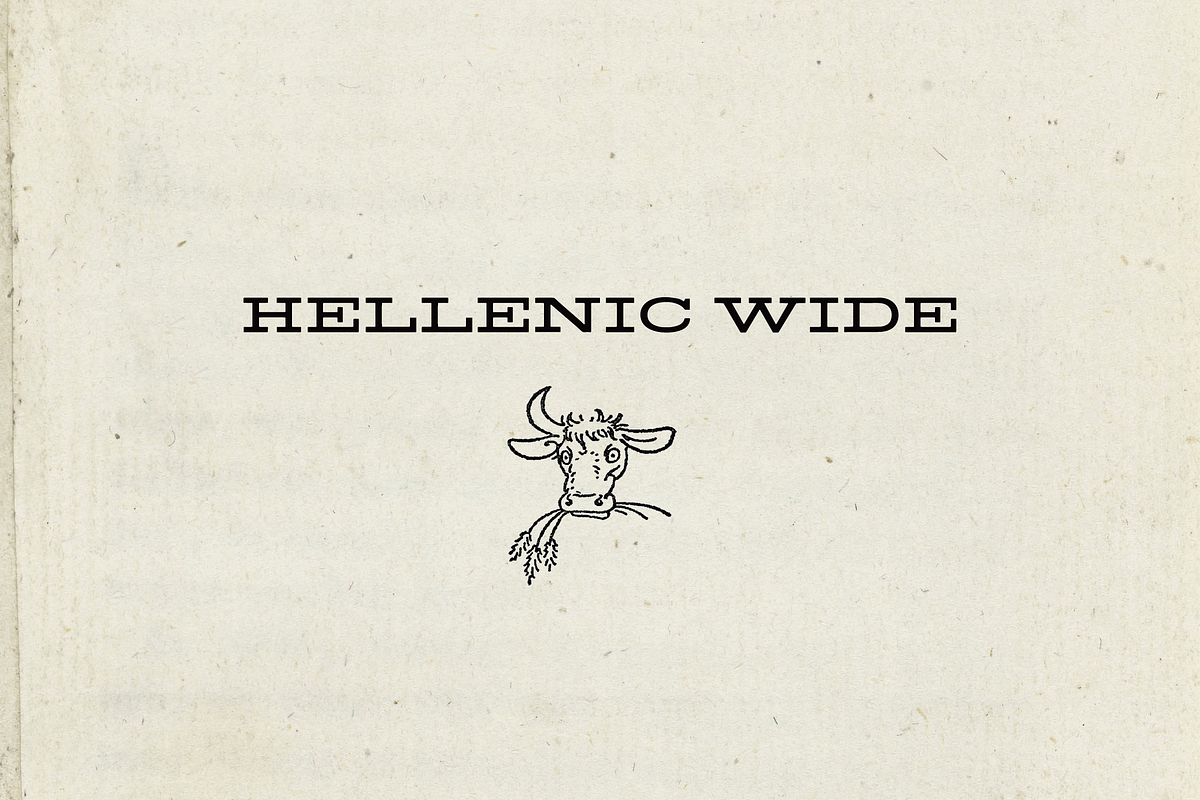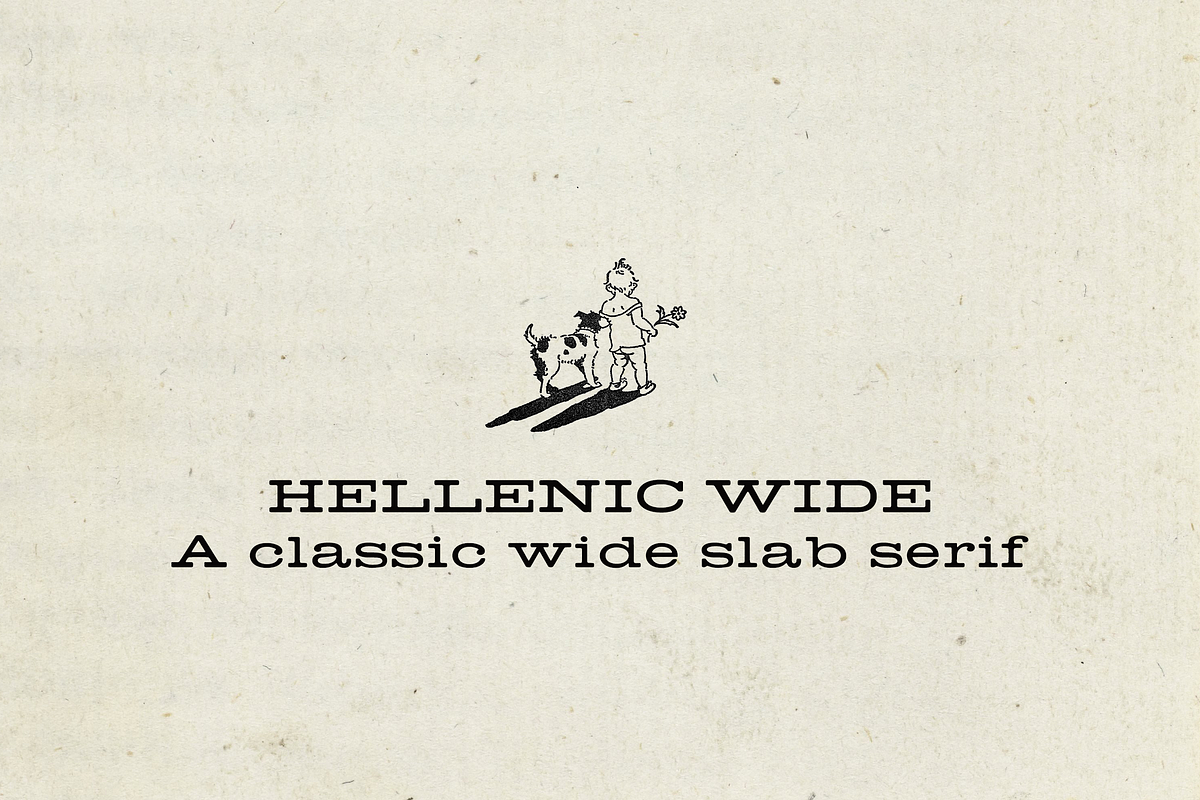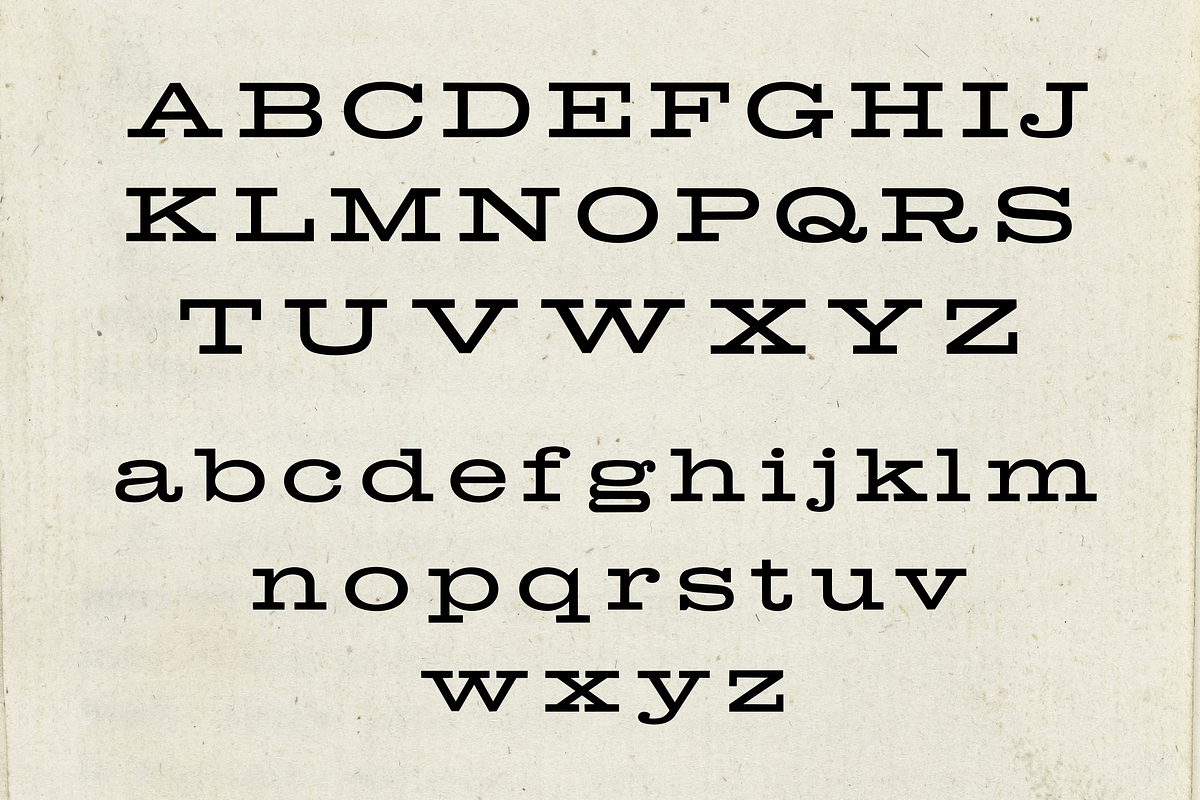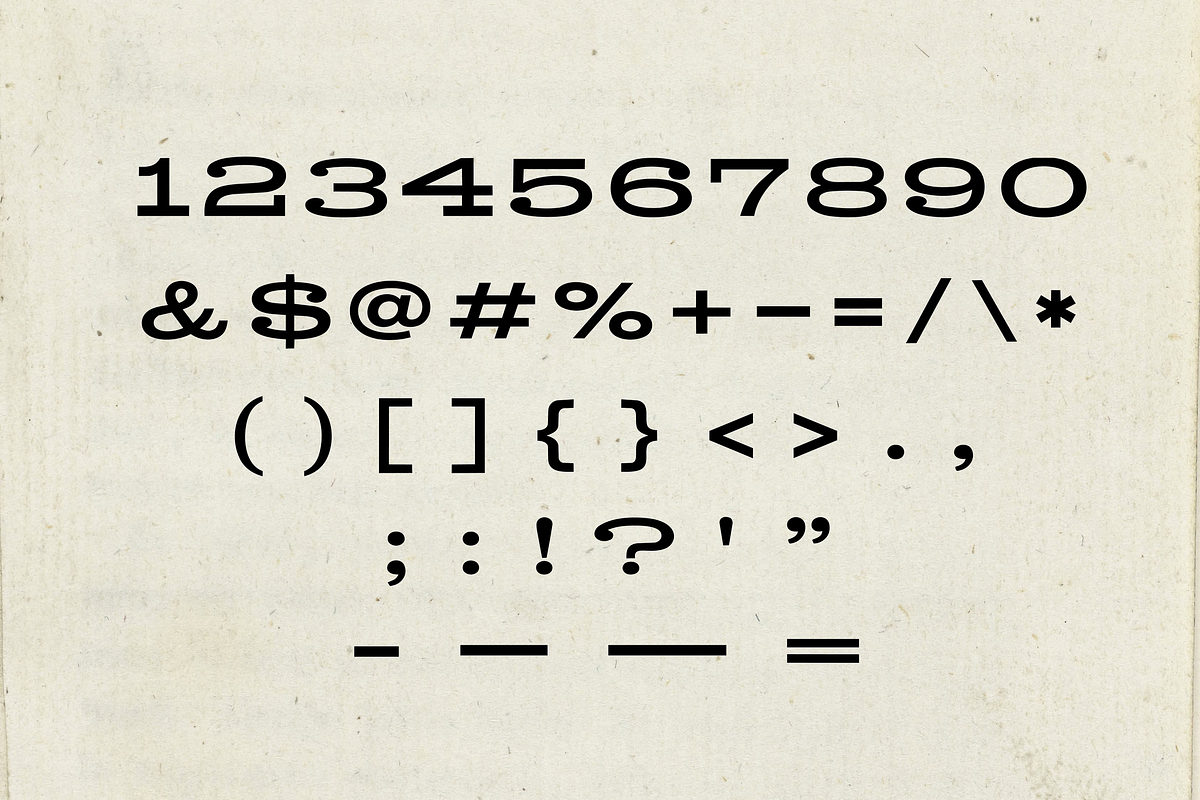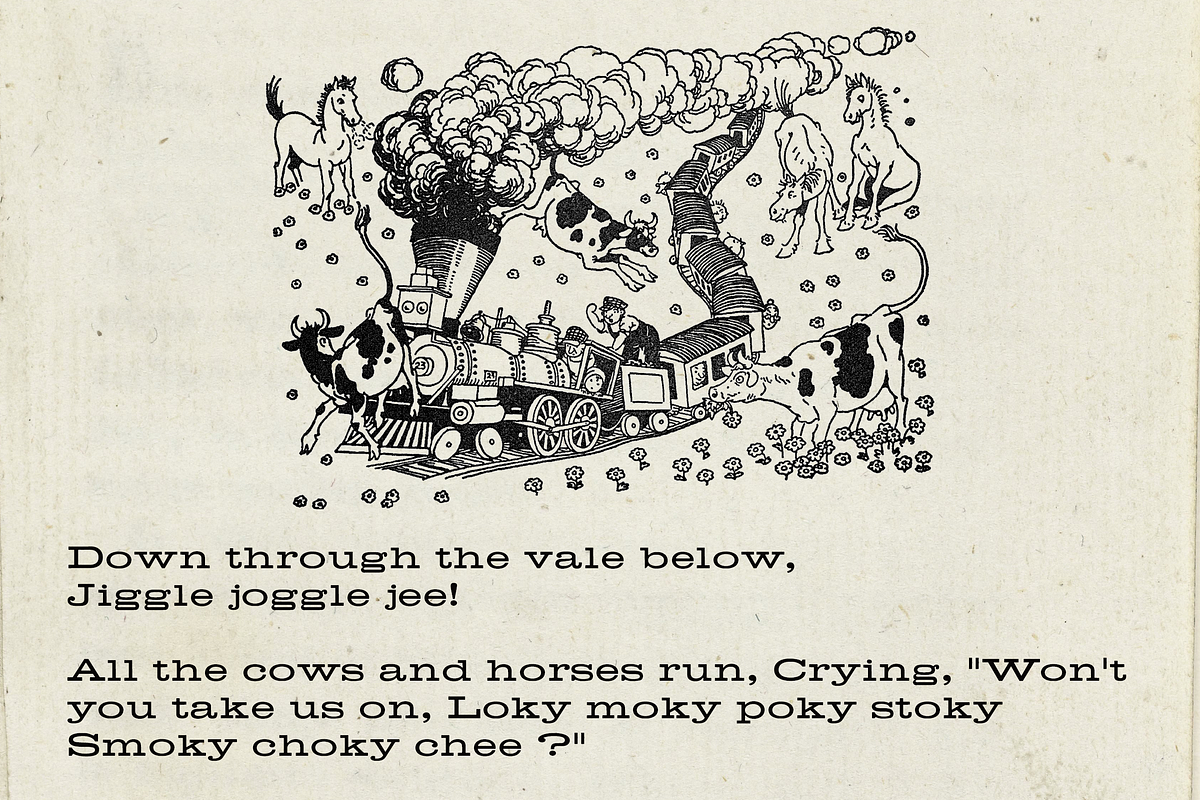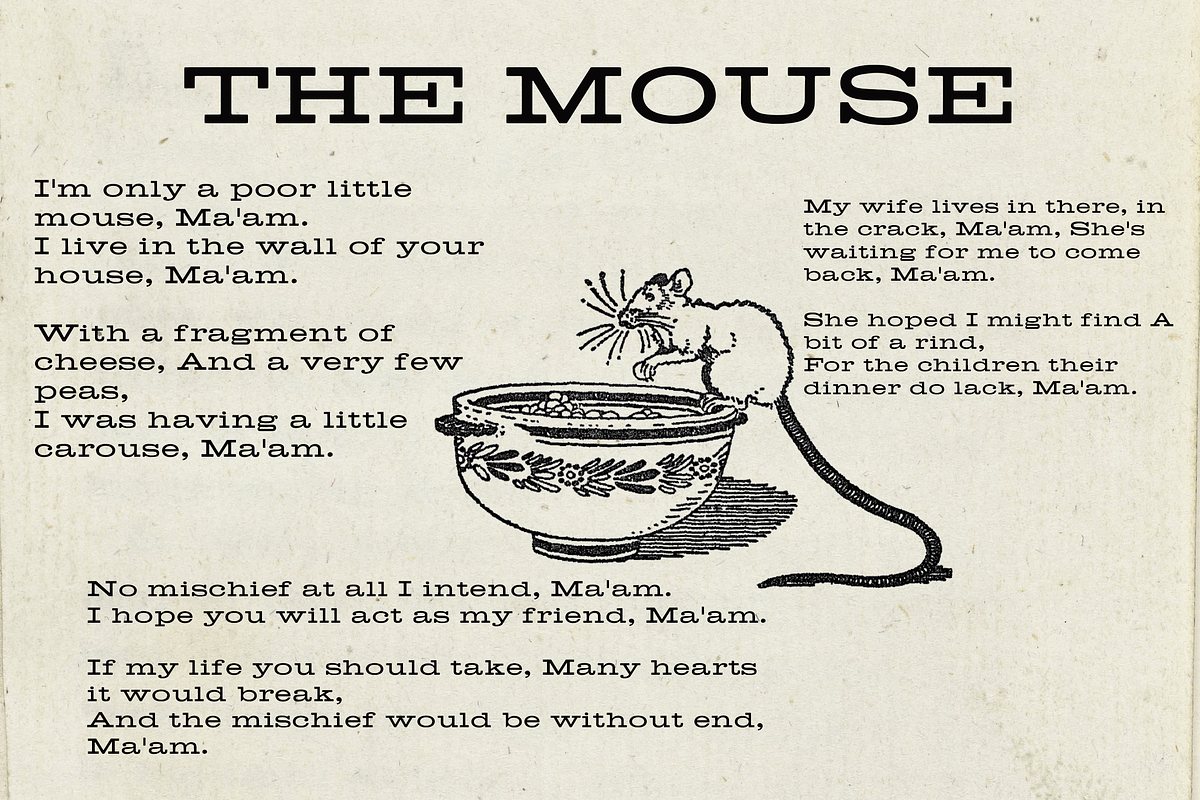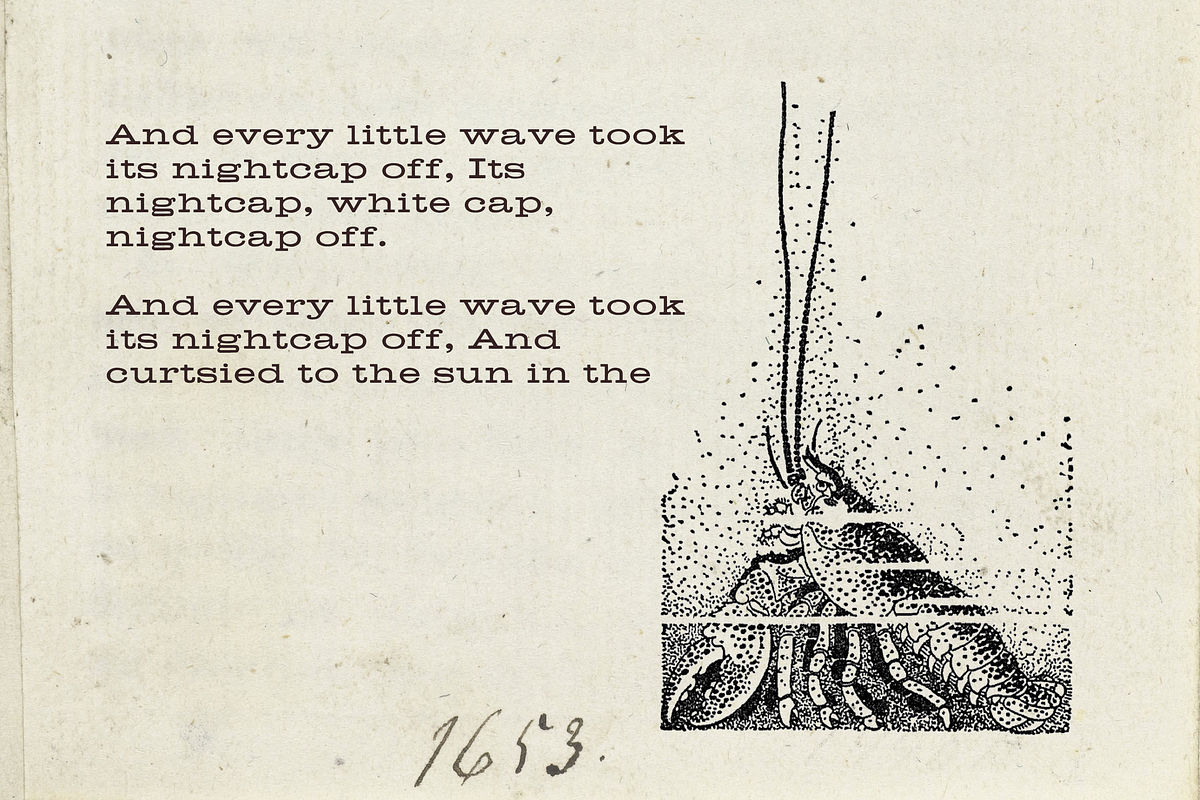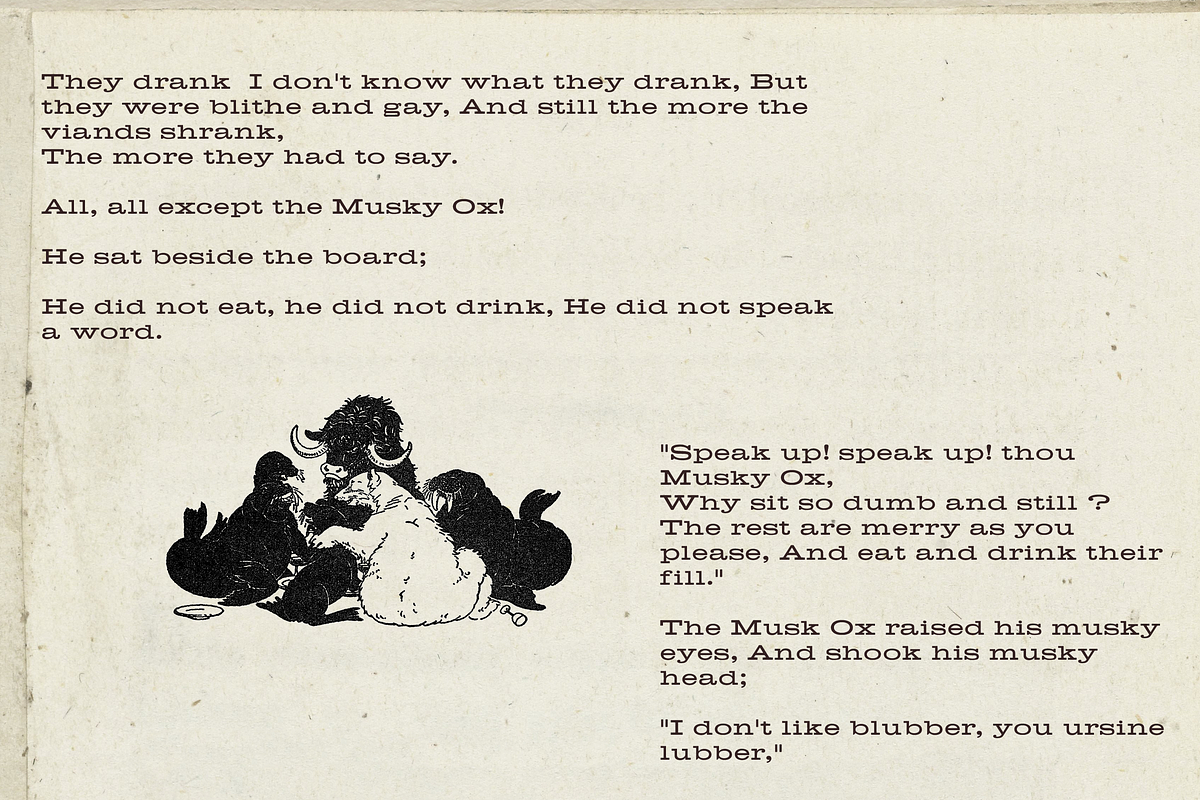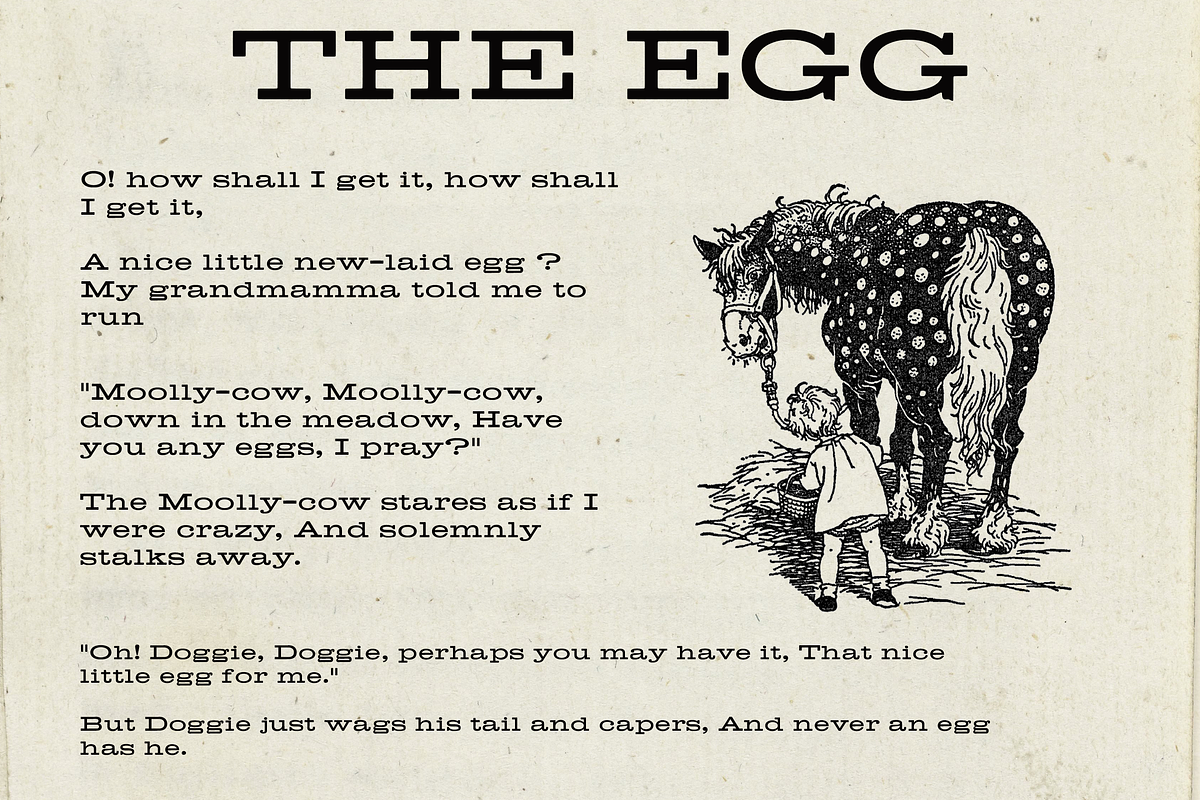
Hellenic Wide - Slab Serif Font
Hellenic Wide is a carefully crafted typeface revival based on lettering discovered in a vintage lettering book, bringing the character and charm of historic typography into a clean, usable modern font.
Inspired by the distinctive wide slab-serif letterforms of the original printed lettering, Hellenic Wide preserves its broad proportions, strong serifs, unusual shapes, and nostalgic personality while adapting the alphabet into a complete digital typeface for contemporary design.
Its bold yet elegant appearance makes it especially suited to editorial design, book covers, posters, packaging, branding, logos, labels, invitations, vintage-inspired graphics, and statement headlines.
Uppercase A–Z
Lowercase a–z
Numbers 0–9
Punctuation & symbols
A beautiful choice for designers looking for typography with an authentic vintage origin and distinctive historical character.